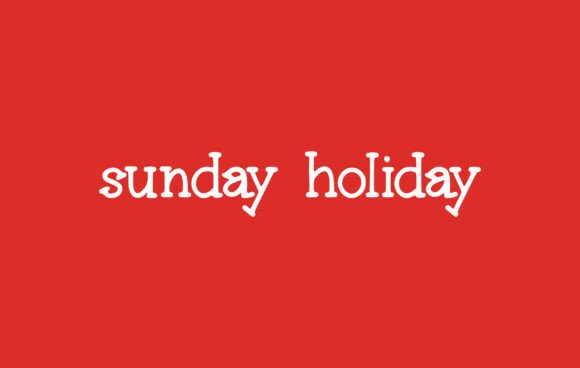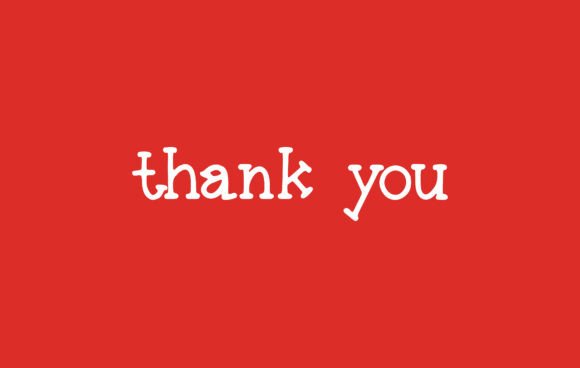
Introduction to Myles Font
As a designer, there’s nothing quite like the thrill of discovering a new font that sparks creativity and sets your project ablaze. For me, it was the moment I stumbled upon Myles Font – an authentic handwritten font with a romantic touch that instantly transported me to a world of elegance and sophistication. Its unique charm has the power to elevate even the most mundane designs, transforming them into breathtaking works of art.
With Myles Font, the possibilities are endless. Whether you’re working on a magazine headline, social media campaign, or wedding invitation, this versatile font is sure to bring your creative vision to life. Its legibility and aesthetic appeal make it an invaluable resource for designers, and its free download availability means you can get started right away.
What sets Myles Font apart is its high-quality design, which boasts a transparent background that allows for seamless integration with any background image or color scheme. As a valuable addition to your design arsenal, Myles Font is sure to become your go-to resource for any creative project that requires a touch of whimsy and romance.
Key Features of Myles Font
- Includes a comprehensive set of glyphs and characters for versatility
- Supports a wide range of languages, making it a great choice for global projects
- Designed with a clean and modern aesthetic, perfect for digital and print media
Honest Review: Myles Font
I recently stumbled upon the Myles Font and I must say, I was impressed. This font is a great addition to any design resource, perfect for creating high-quality designs for various creative projects.
Here are some of the things that work well with Myles Font:
- ✨ High-quality design: The font is clean, modern, and visually appealing.
- ✨ Versatile: The font can be used for a wide range of creative projects, from logos to brochures.
However, there are some limitations to keep in mind:
- ⚠️ Limited font weights: The font only comes in a few weights, which may limit its versatility.
- ⚠️ No italic or bold versions: The font does not have italic or bold versions, which may be a drawback for some designers.
Overall, I think Myles Font is a solid choice for designers looking for a high-quality, free font. While it has some limitations, its clean design and versatility make it a great addition to any design resource.
Using Myles Font in Creative Projects
Myles Font is ideal for use in branding, marketing materials, and social media graphics. It’s also a great choice for creating eye-catching titles and headings.
Getting the Most Out of Myles Font
To get the most out of Myles Font, experiment with different font sizes, colors, and styles to create a unique design. You can also pair Myles Font with other fonts to create a visually appealing combination.